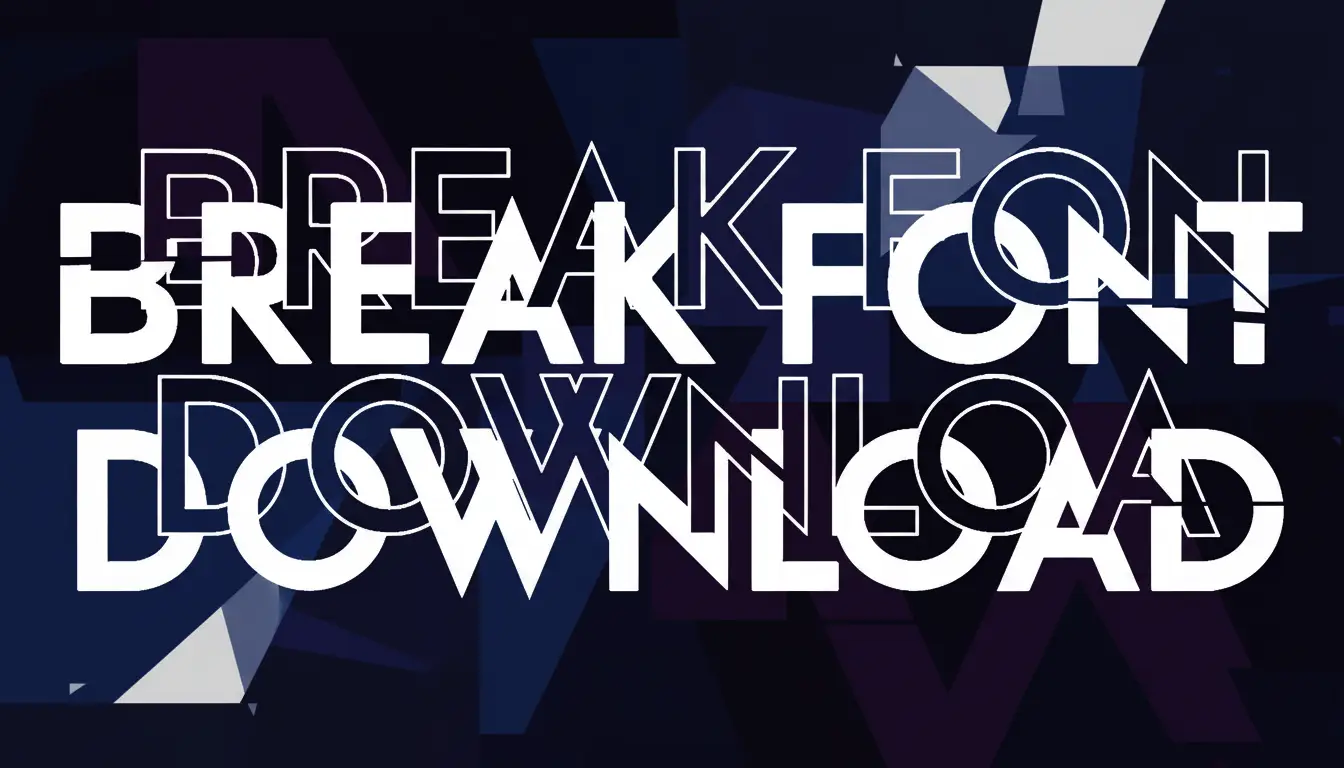
Break Font
Break
What You Can Type With Break
Break covers the full alphabet in upper and lowercase, plus all ten numbers, so you can set names, dates and prices without switching fonts. Everyday marks like ! and ? are there too. There are no accented letters like é or ñ, so it's best kept to English text.
Where Break Works Best
Think of Break for posters, logos and eye-catching headlines. Use it for one standout word or headline and let simpler fonts handle the rest.
Does Break support accented letters?
No. Break has no accented letters such as é, ñ or ü, so it's best for English text.